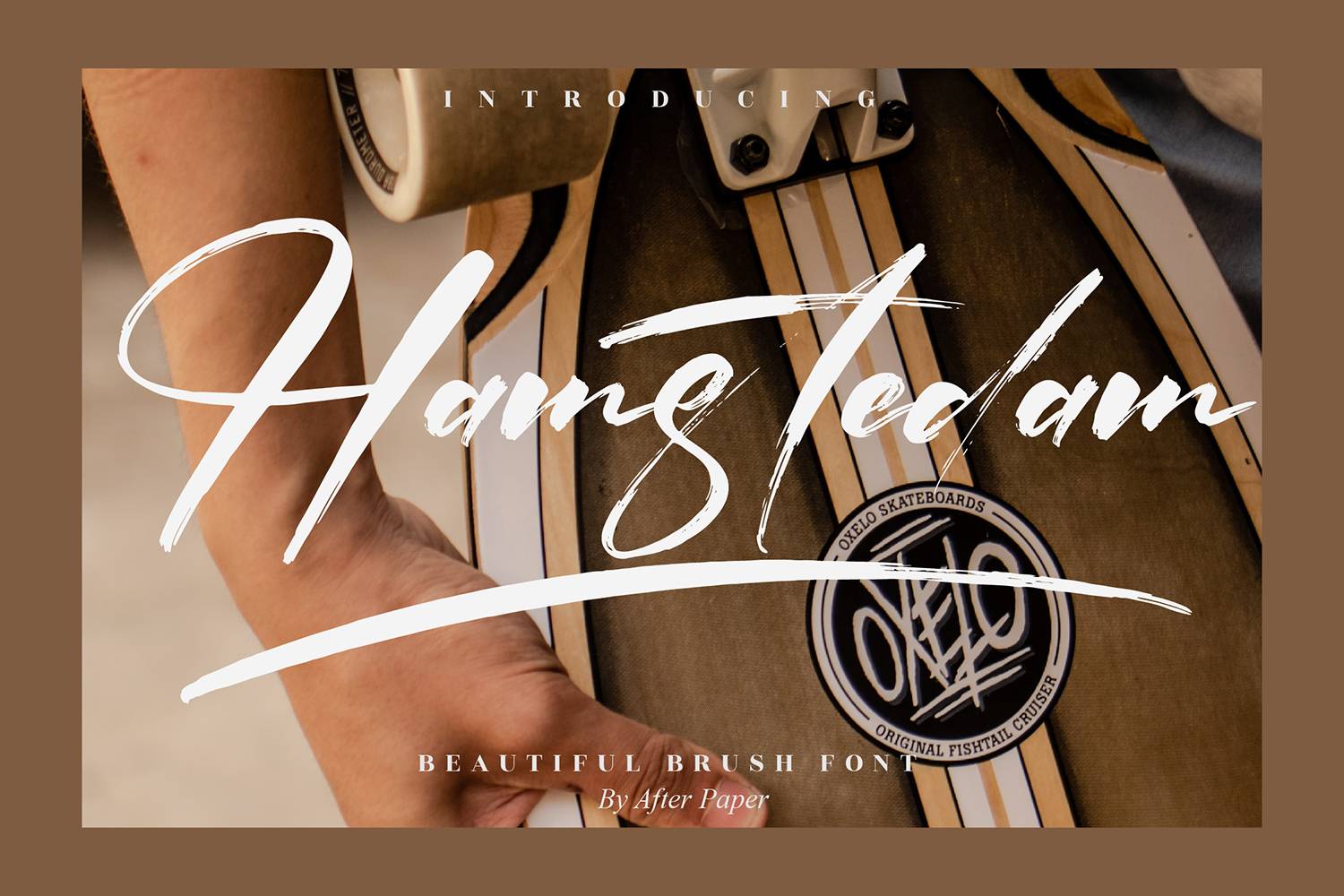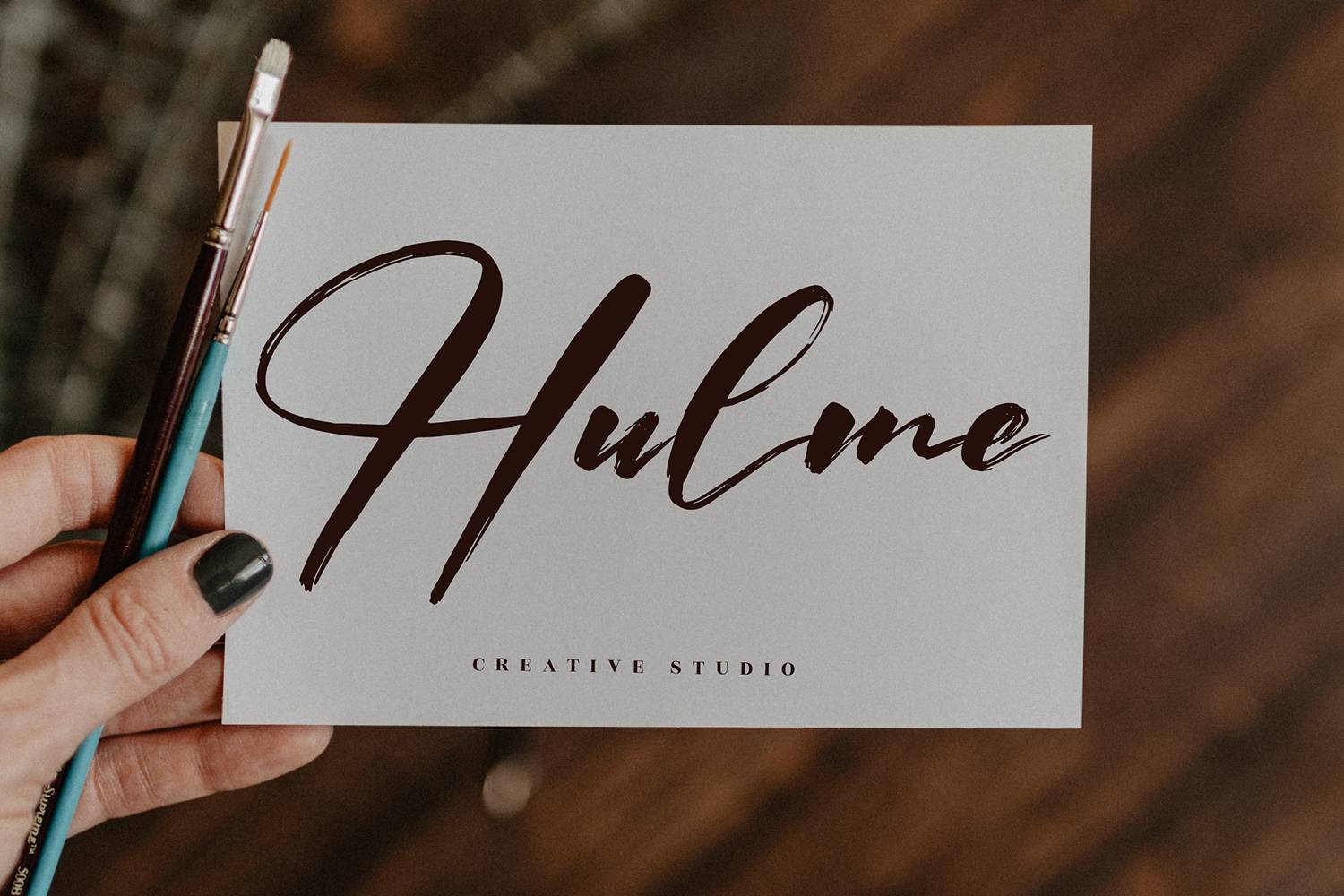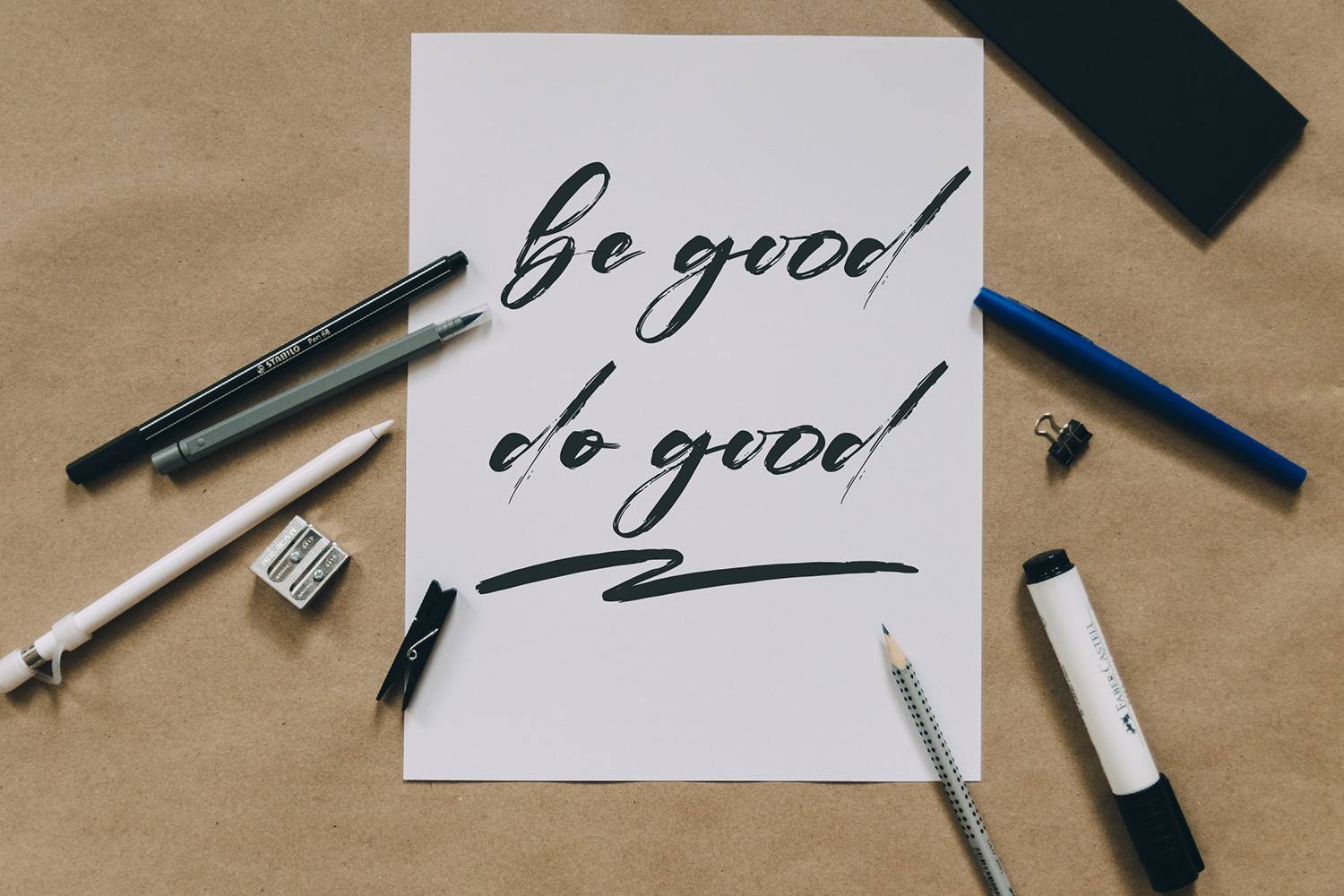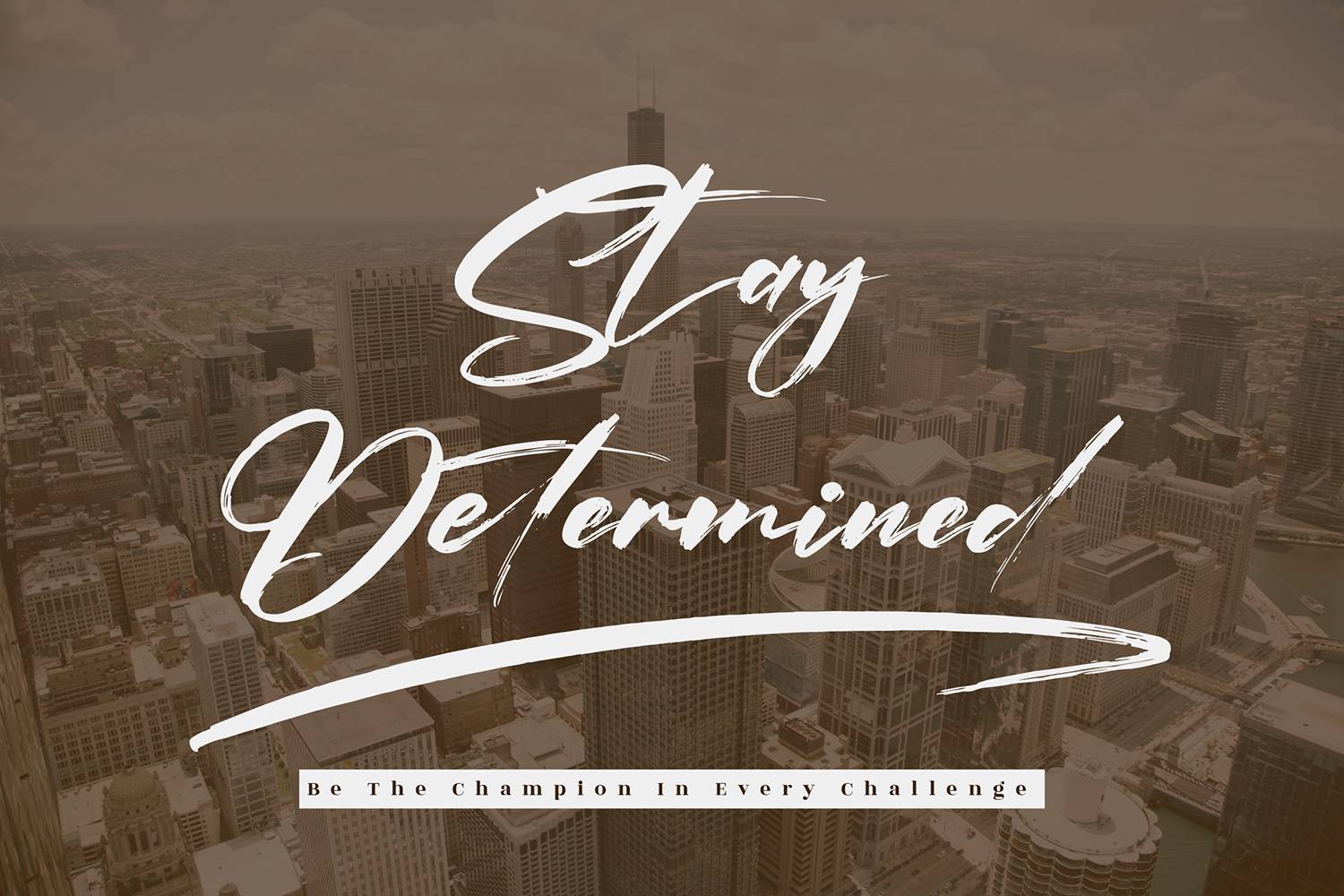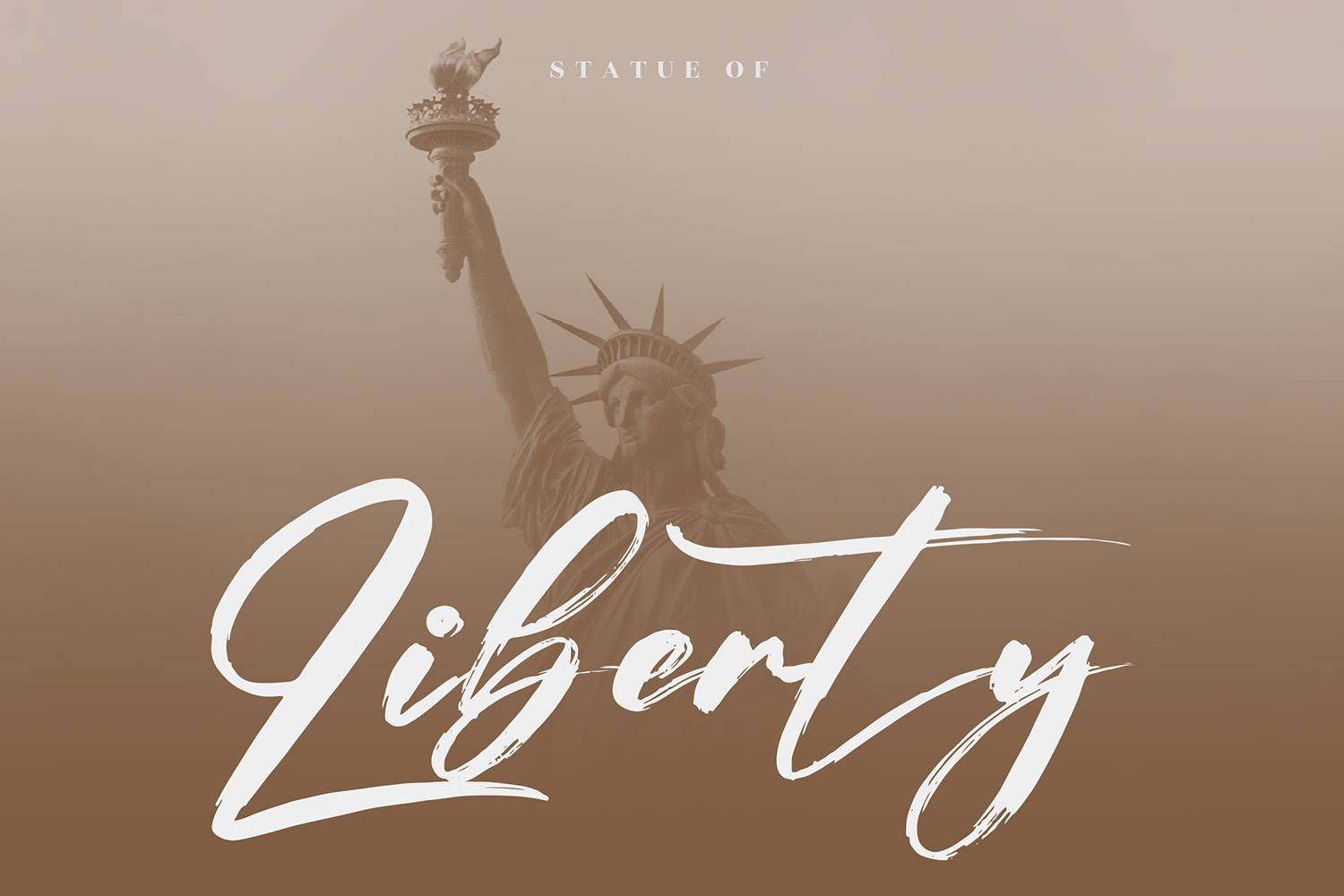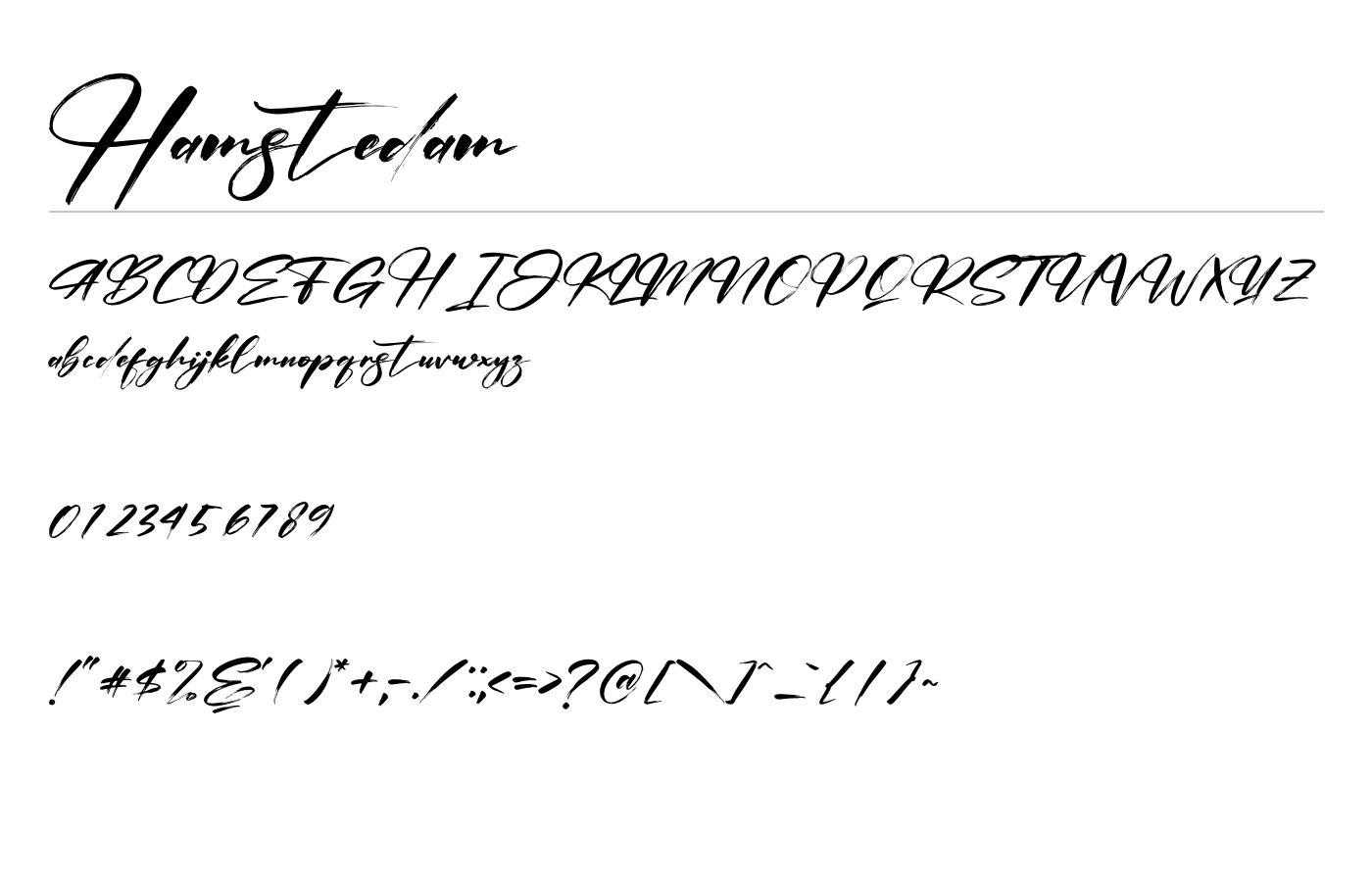
Hamstedam is a brush script font with a dynamic, hand-painted feel that combines elegance with energetic expressiveness. Its varied stroke widths and fluid letterforms give it a personal, artistic touch, making it ideal for creative branding, invitations, and headlines where a stylish yet informal look is desired. This font excels in designs needing a bold, authentic signature style that feels both modern and approachable.
Hamstedam Font
About Hamstedam Font